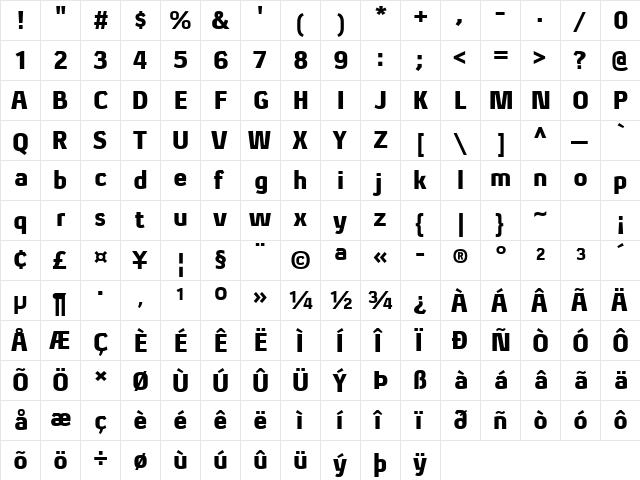
Xenu Black Regular Font Preview
Xenu Black Regular
Design Context for Xenu Black Typeface
Xenu Black offers clean, dependable letterforms without strong stylistic allegiance, making it a practical choice for designers who need flexibility.